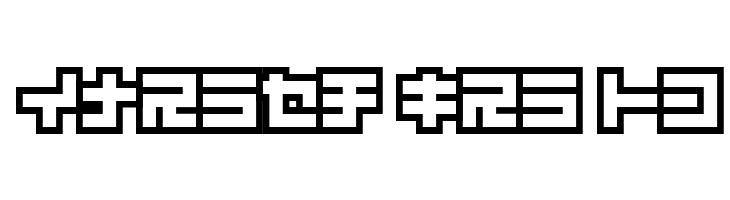
( Fonts by Furdzville - Brian Powers )
A whimsical and decorative font with intricate, playful letterforms.
( Fonts by www.DigitalDreamDesign.net )
A bold, pixelated font with a retro, digital aesthetic.
( Fonts by www.DigitalDreamDesign.net )
A pixelated, digital-style font with a retro tech aesthetic.
( Fonts by www.DigitalDreamDesign.net )
A bold, geometric font with a futuristic and industrial design.
( Fonts by www.DigitalDreamDesign.net )
A bold, futuristic font with a geometric and modern design.
( Fonts by www.DigitalDreamDesign.net )
A pixelated, retro-style font with a digital, tech-inspired aesthetic.
( Fonts by www.DigitalDreamDesign.net )
A bold, geometric font with a digital and modern aesthetic.
( Fonts by www.DigitalDreamDesign.net )
A bold, geometric font with a futuristic and digital aesthetic.